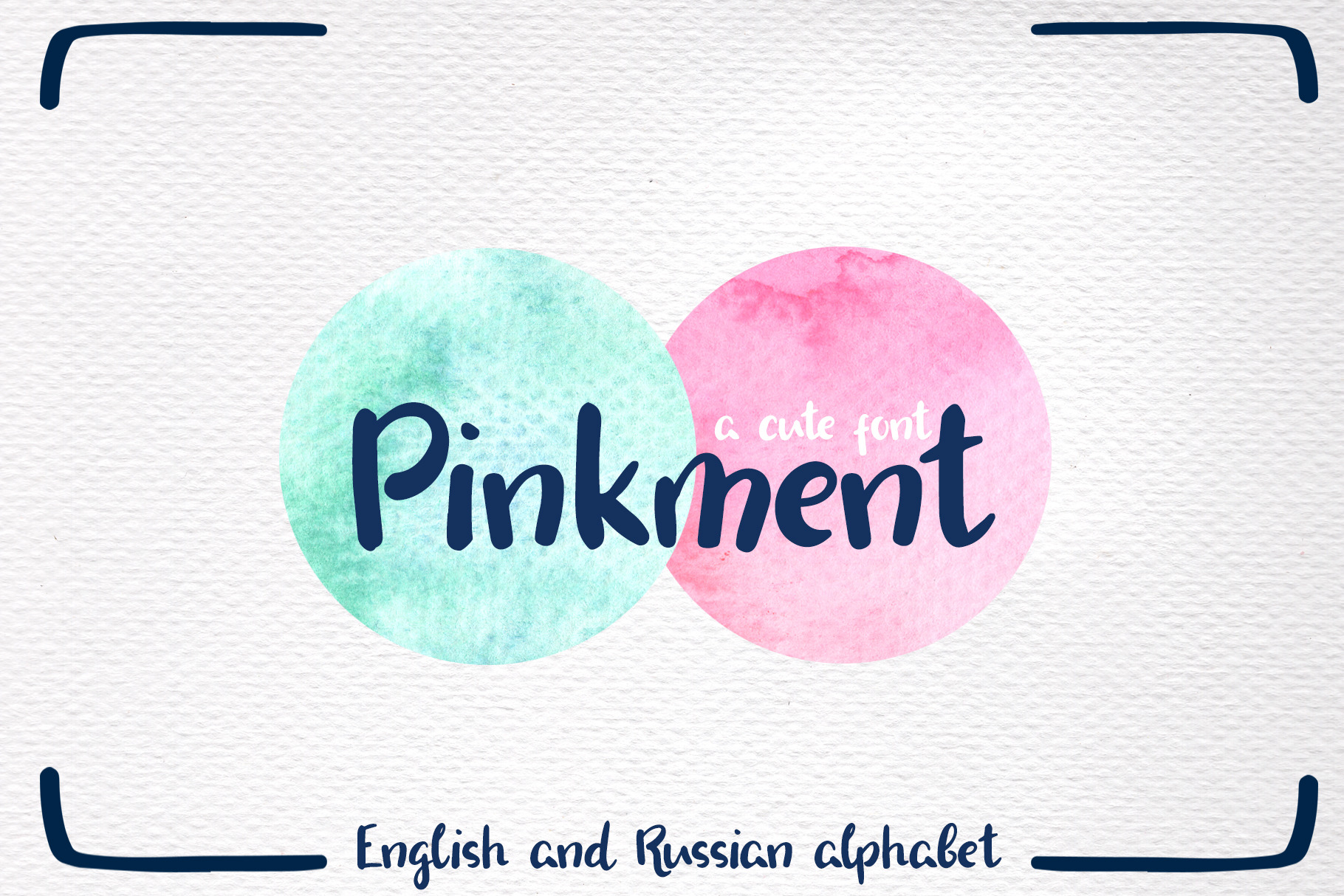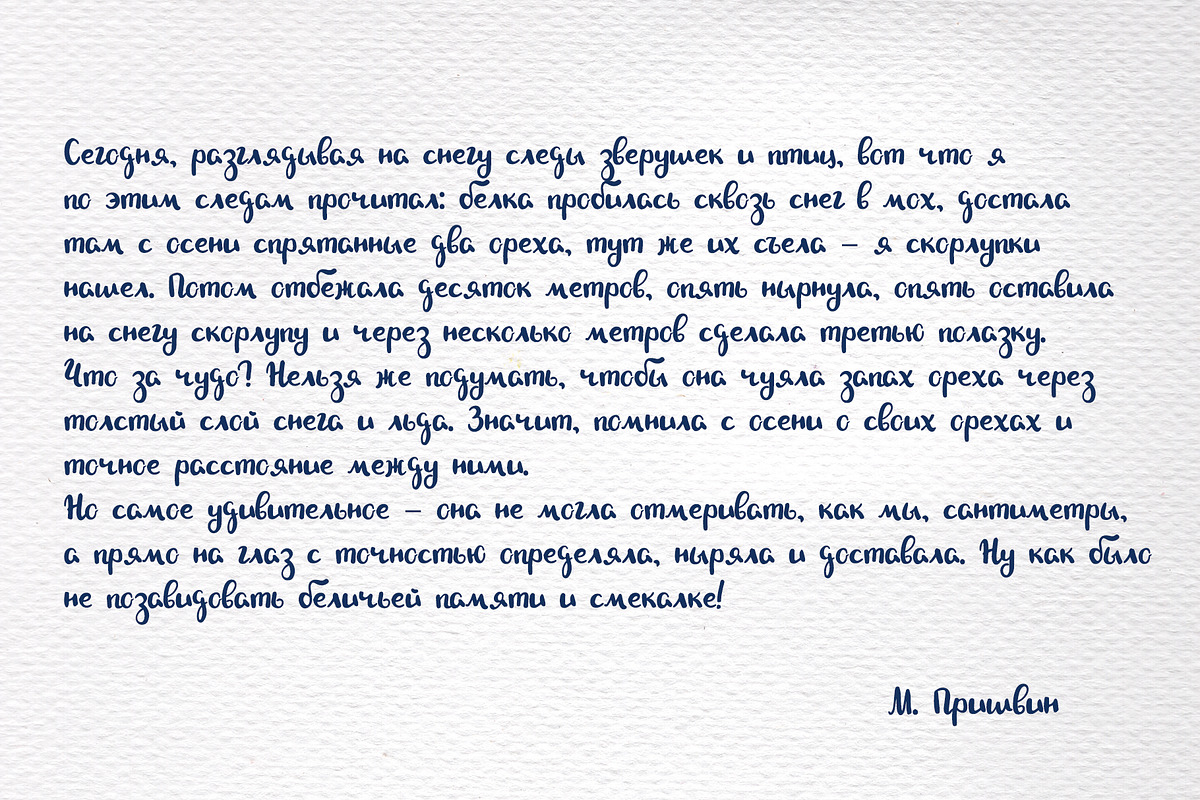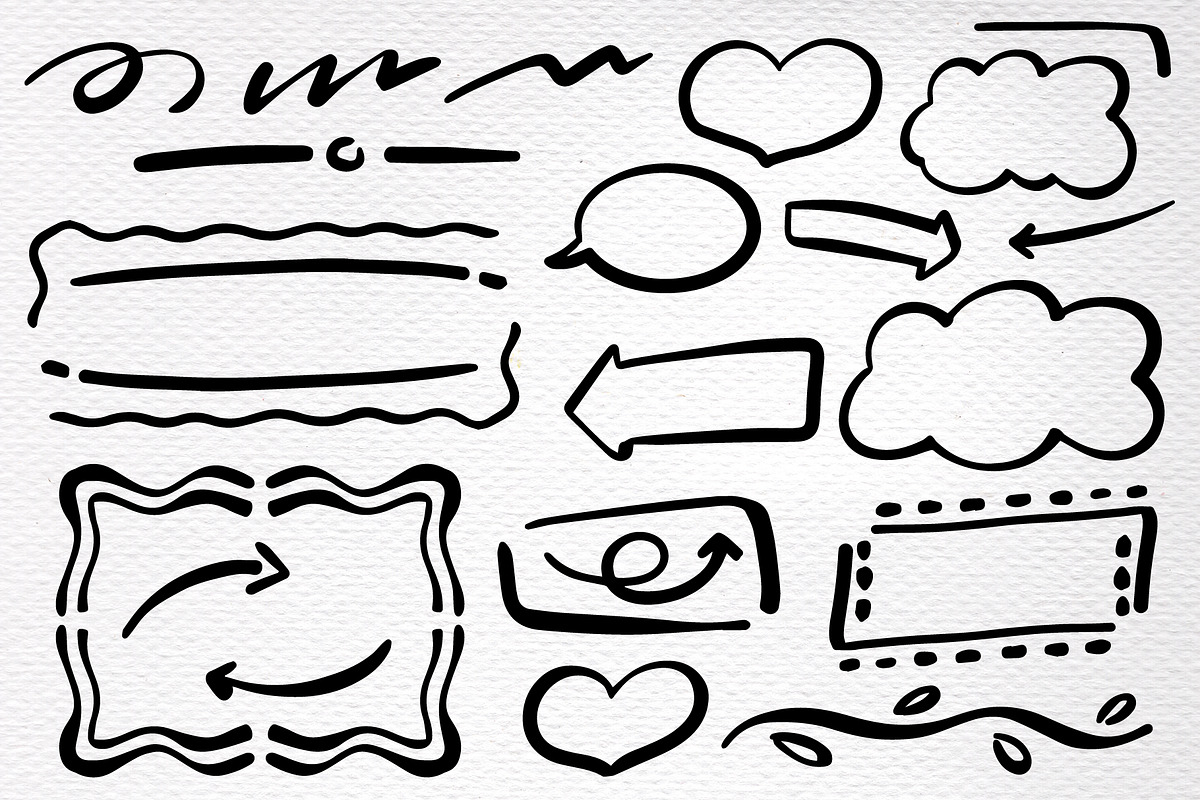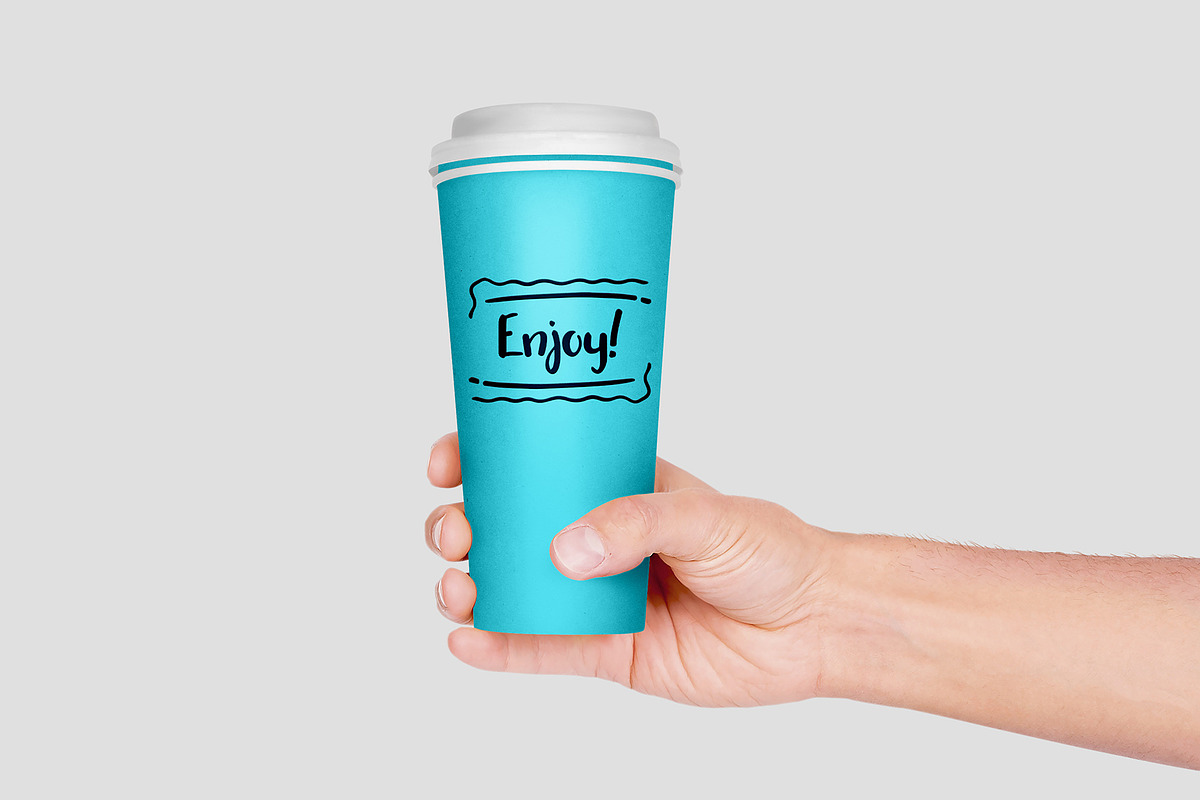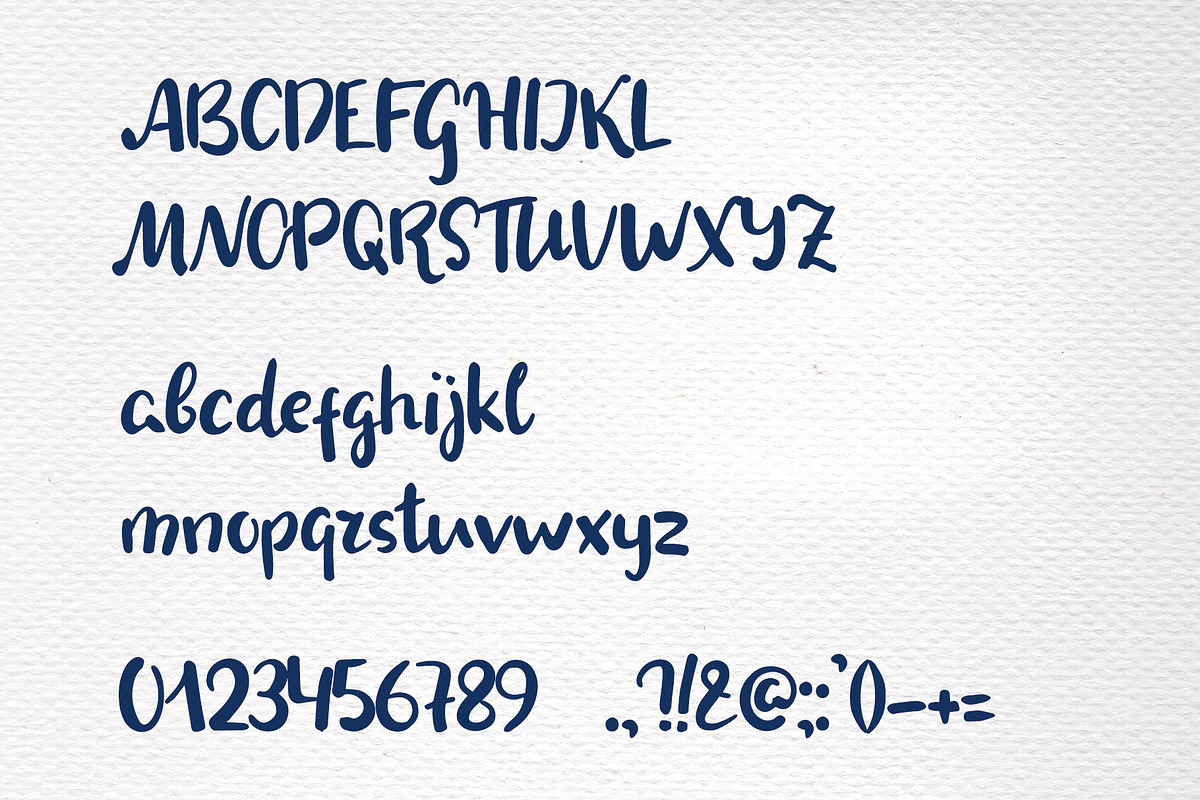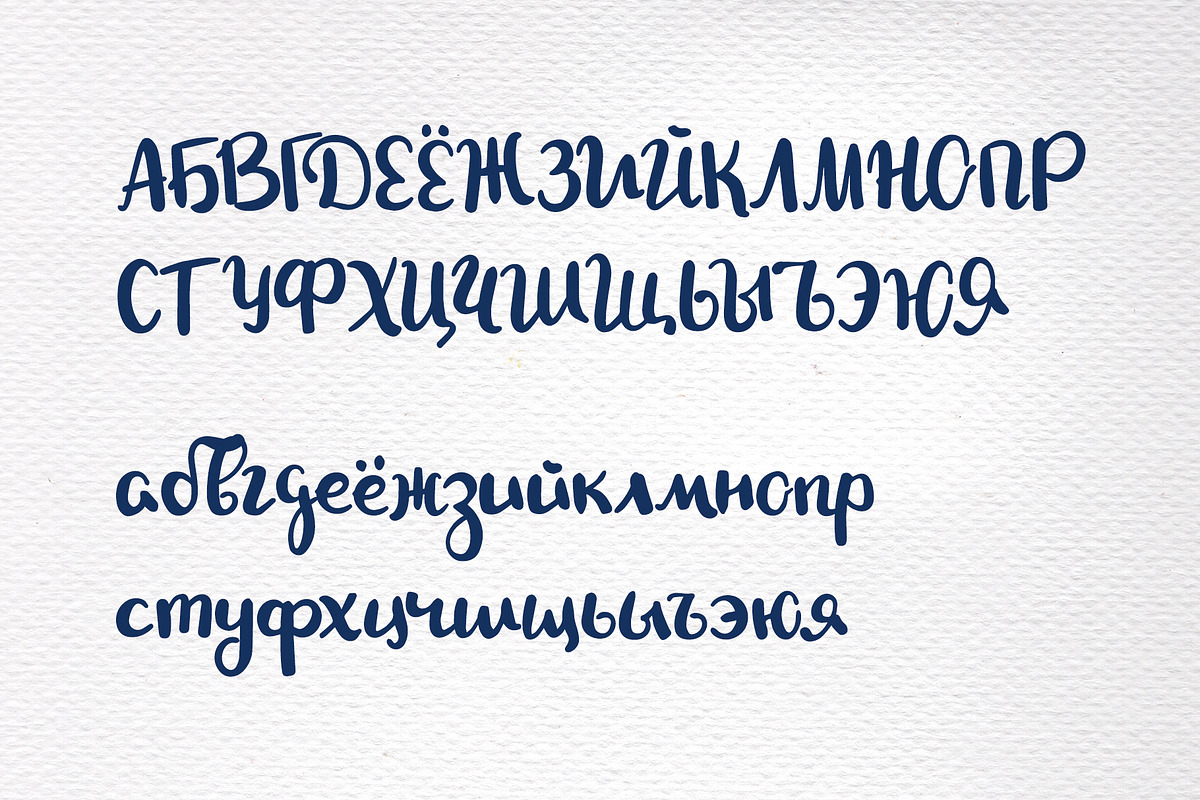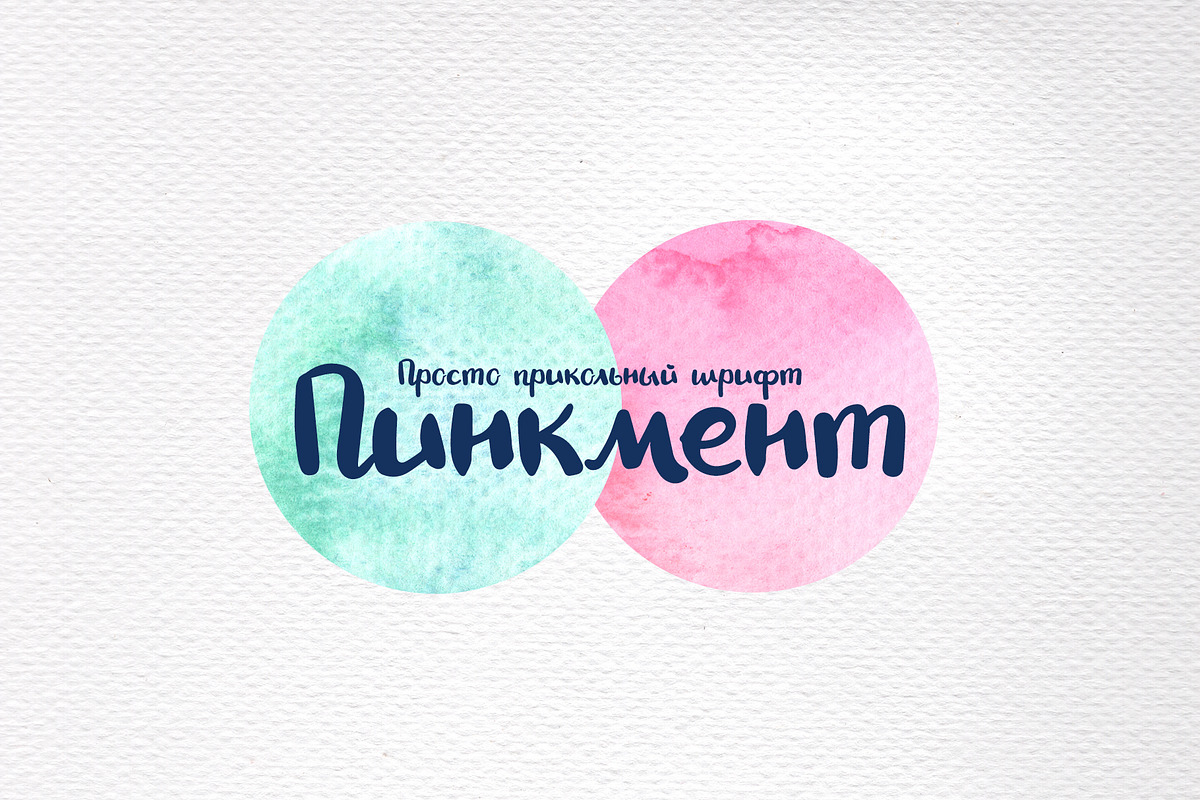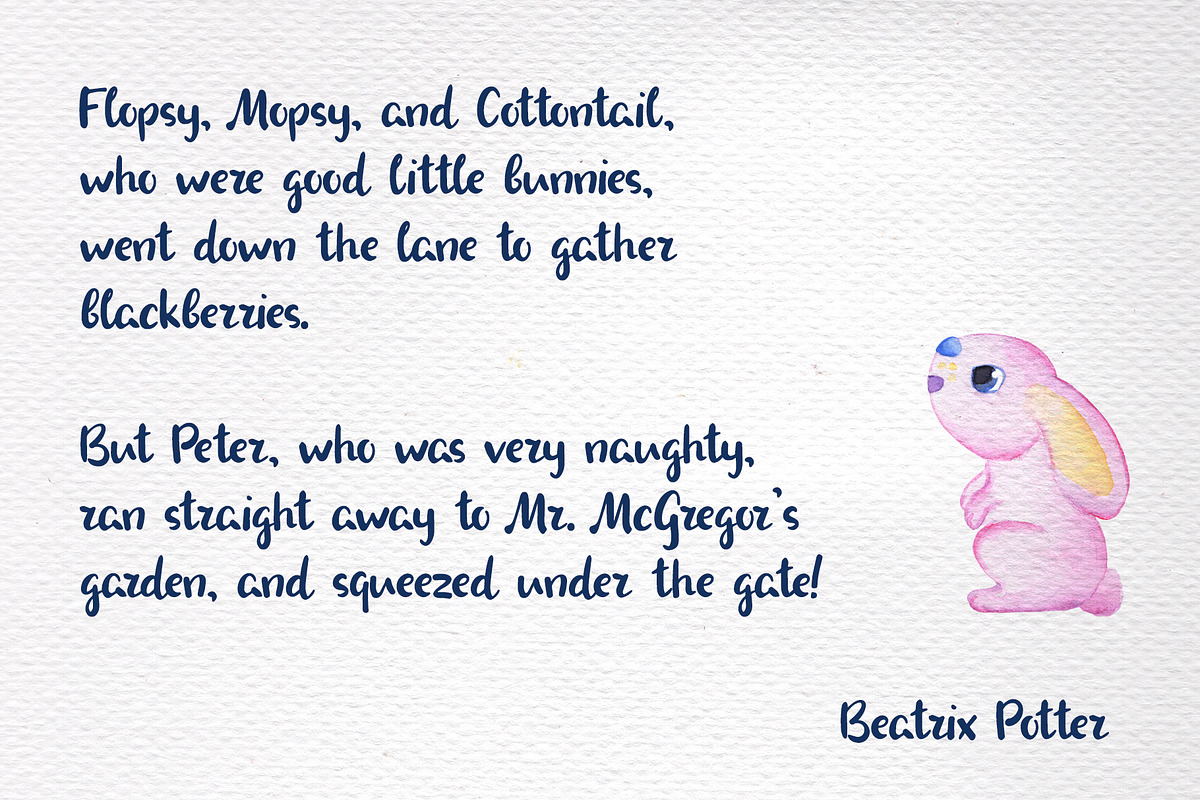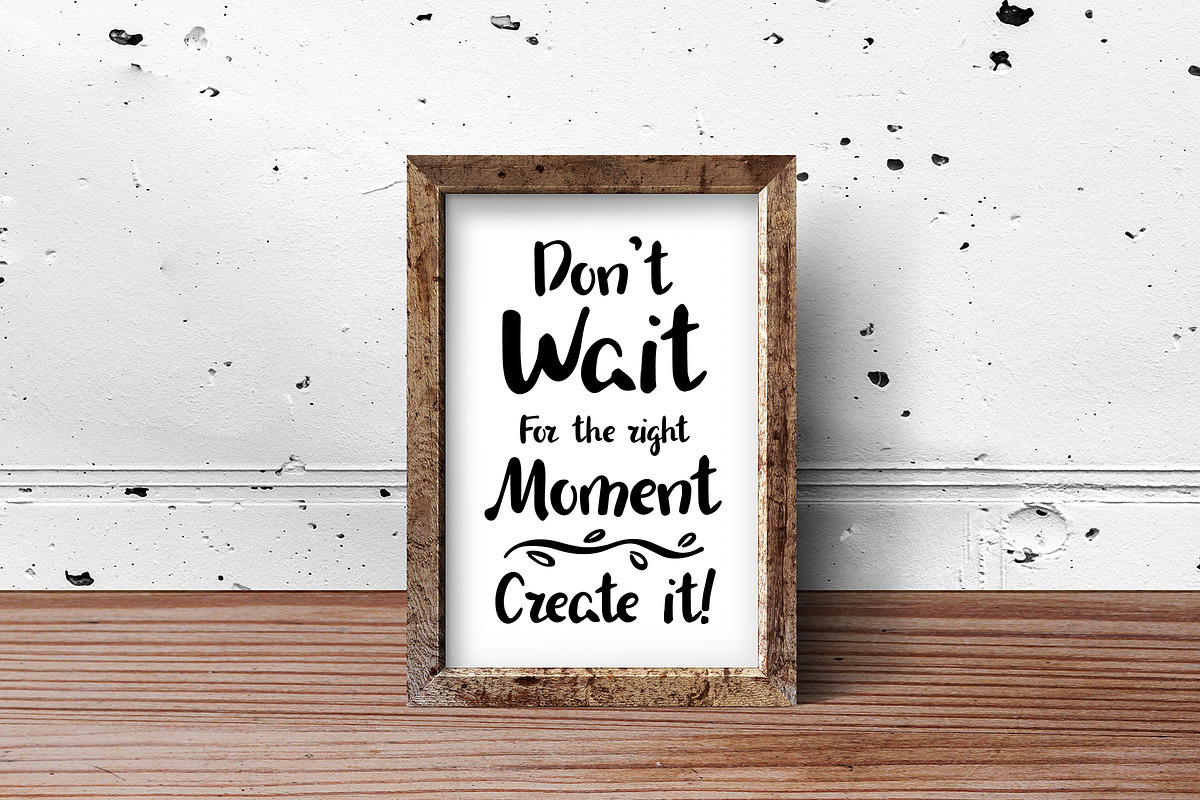
Cute Brushpen Handwritten Font
Meet Pinkment - informal handwritten font with easy and playful character!
It is a real hardworker: use it for logos and branding, children-oriented design, hipster posters, and even for story text! This font is provided for English and Russian alphabets, and has some extras - the set of design elements for you to make a beautiful typography!
- The font: English and Cyrillic letters, numbers, and wide range of punctuation signs;
- The elements: speech bubbles, clouds, hearts, arrows, text dividers and frames.